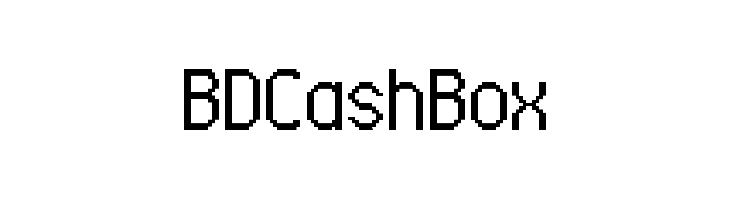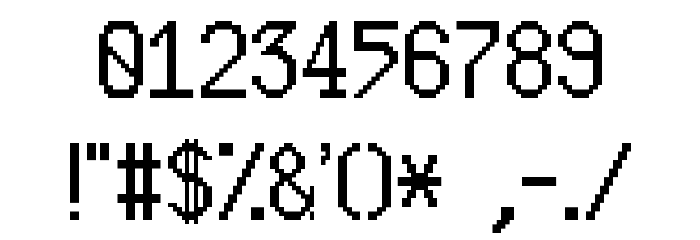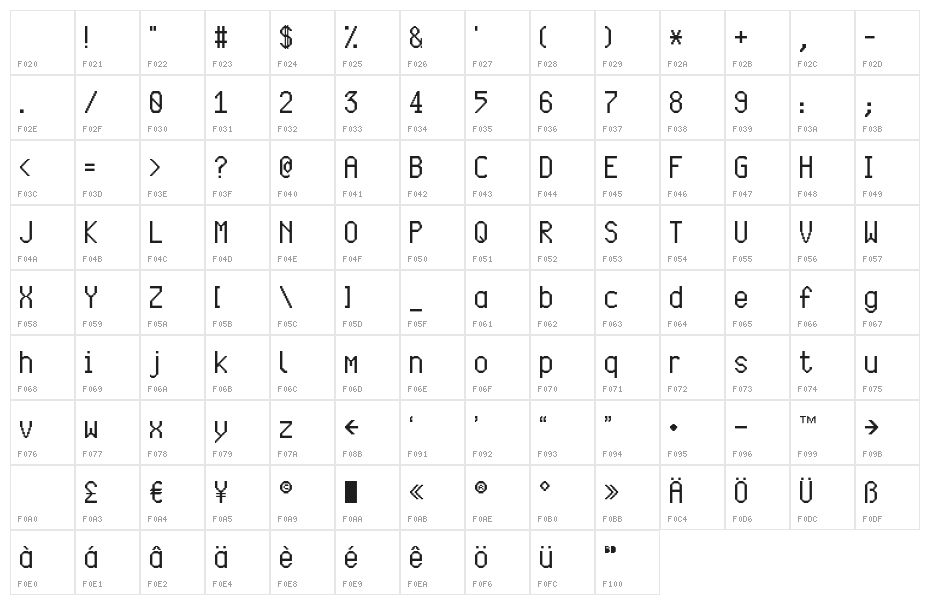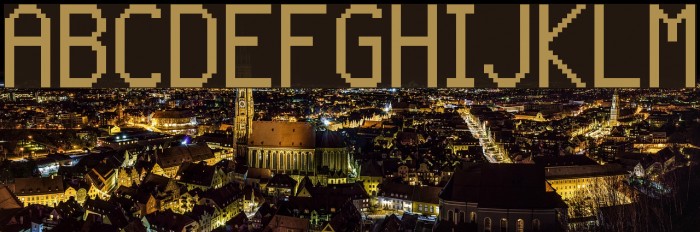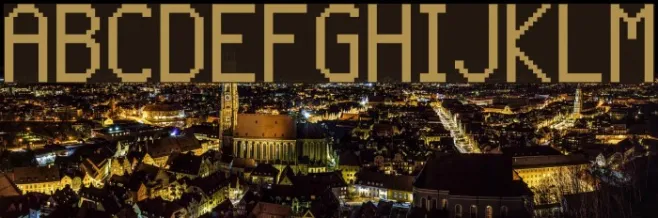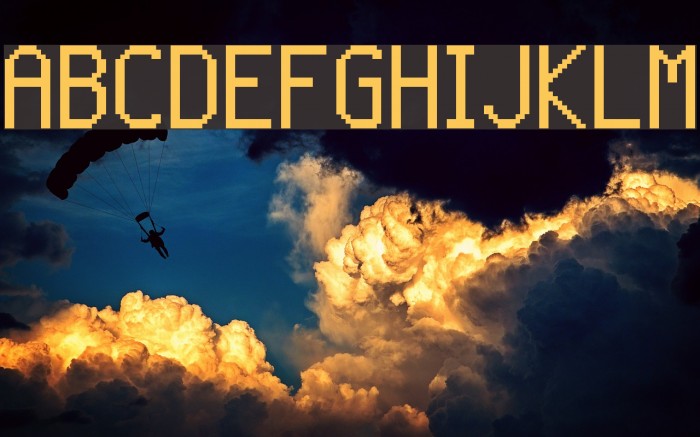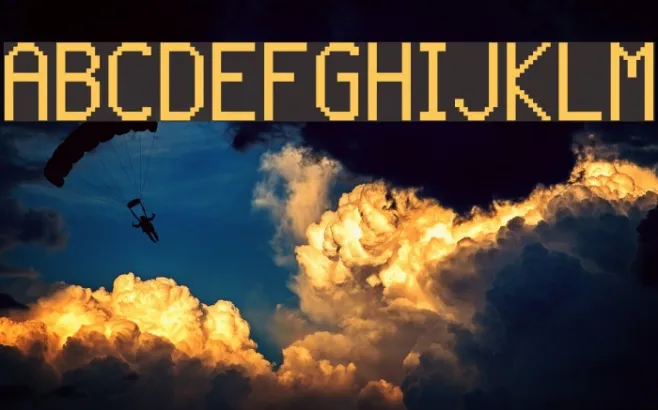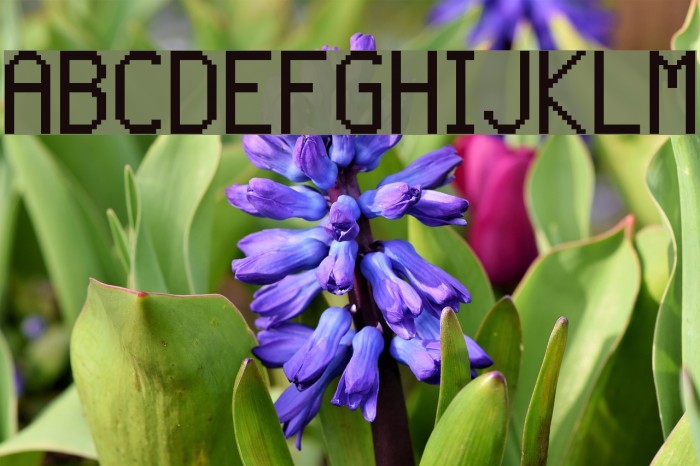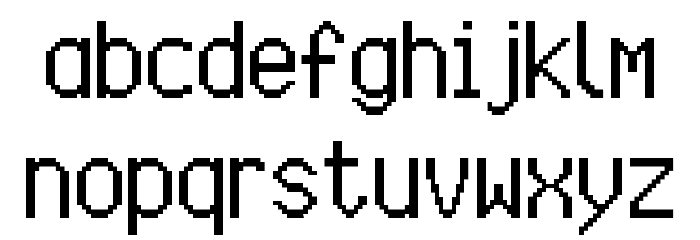
BDCashBox Font
BDCashBox Description
This font features a pixelated, monospaced design reminiscent of early digital displays and retro video games. Each character is constructed with a uniform grid-like structure, giving it a distinct blocky appearance. The uppercase and lowercase letters maintain a consistent height, while numerals and special characters follow the same pixelated style. The font's simplicity and geometric precision make it ideal for projects that require a nostalgic or tech-inspired aesthetic. Its clear and legible form ensures readability even at smaller sizes, making it versatile for various digital applications.
| Use Case | Headlines, Logos, Digital displays |
| Proposed Projects | Ideal for retro video games, digital art, tech-themed posters, and nostalgic branding. |